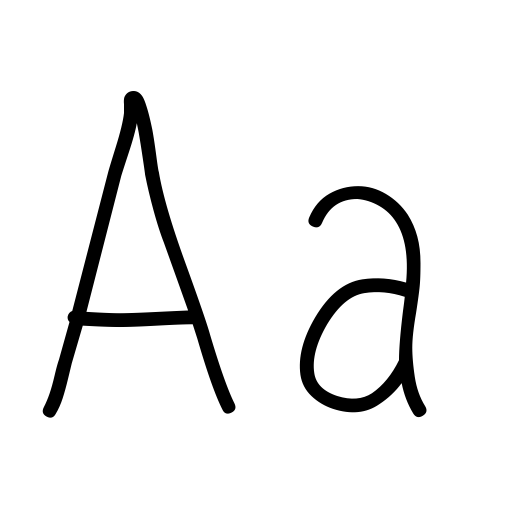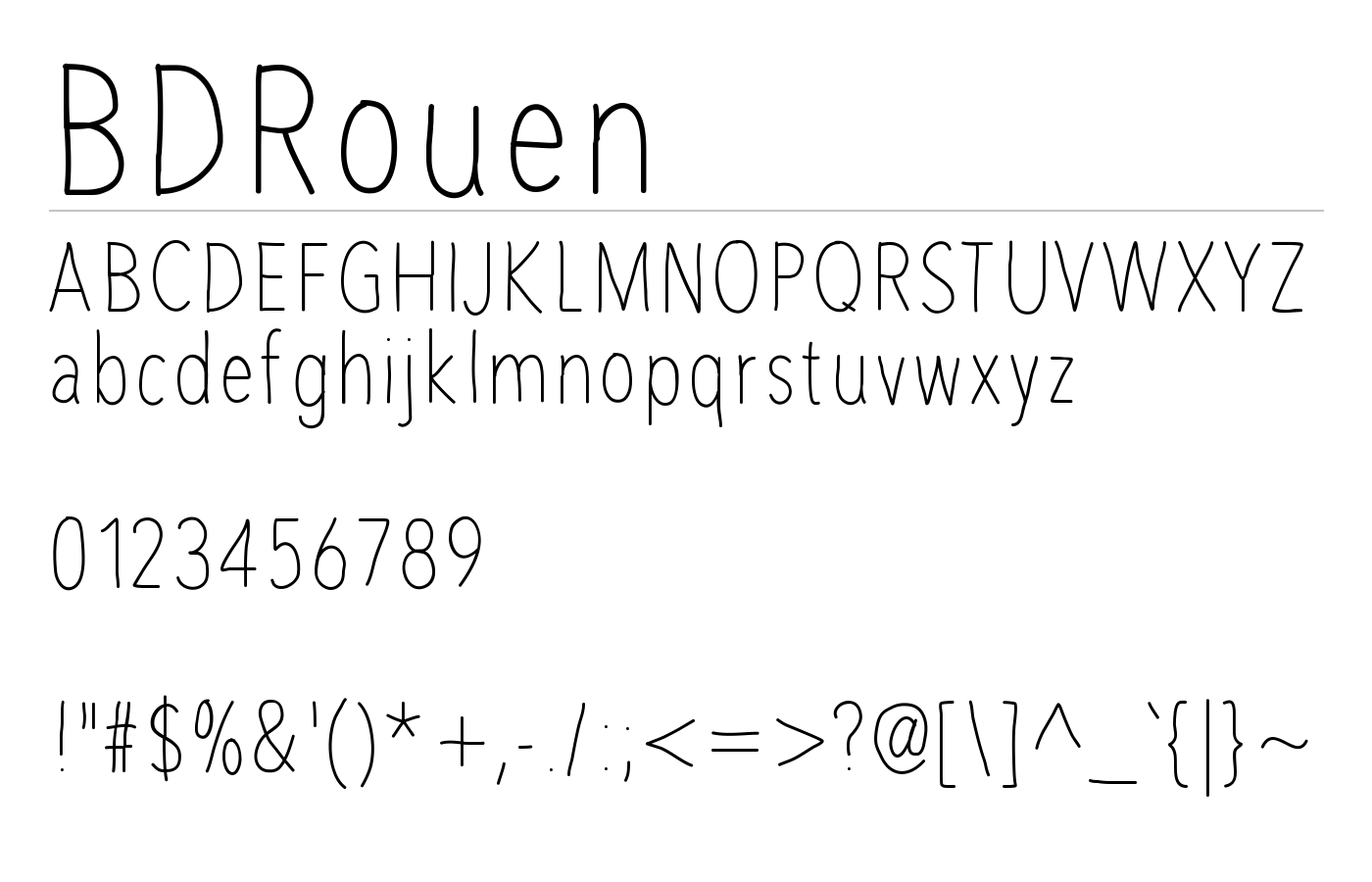
BDRouen is a handwritten-style sans serif font characterized by its slender, tall letterforms and playful, casual feel. With its light weight, narrow width, and simple strokes, it brings a friendly and approachable personality, making it ideal for informal designs, kids' products, or creative branding that seeks a personal touch. Its clean, airy spacing also ensures good readability for headlines and short texts.
BDRouen Font
About BDRouen Font